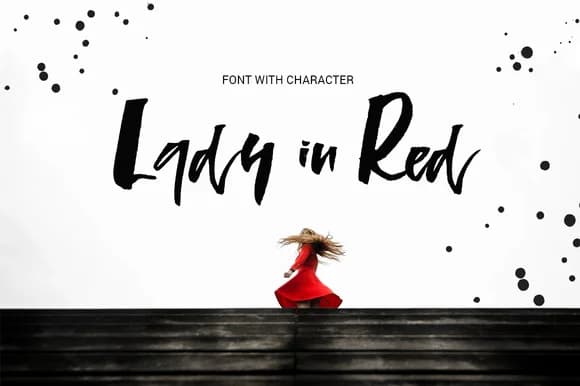
Lady in Red Font by Favete Art is a flowing script typeface that merges calligraphic sophistication with contemporary readability. The typeface's elegant letterforms and graceful curves deliver a distinctly romantic aesthetic that works equally well in digital and print applications. It captures that coveted hand-lettered quality without sacrificing legibility, making it accessible to both professional designers and creative enthusiasts seeking authentic character in their work.
This script works particularly well across specific design applications where refined handwriting adds genuine value. Wedding invitation suites benefit from its romantic energy, while luxury brand identity systems gain timeless sophistication through its letterforms. Personalized stationery designs showcase its elegance, and high-end boutique product packaging becomes more memorable when paired with this typeface. Beyond professional applications, crafters love using it for vinyl decal projects, custom apparel designs, handmade gift labels, and DIY home dΓ©cor pieces where a sophisticated handwritten aesthetic enhances perceived value.
Lady in Red Font also shines in editorial layouts, greeting card designs, and social media content where visual communication demands authentic personality. Whether you're building a premium brand or creating handcrafted pieces, this typeface delivers refined character across any project. Get Lady in Red Font from Creative Fabrica and bring hand-drawn elegance to your creative work.
Lady in Red Font is a script font that shines as a display or heading face. Pair it with a clean sans-serif or serif font for body text β the contrast creates a clear hierarchy while the two styles stay balanced and easy to read.
Lady in Red Font
by Favete Art